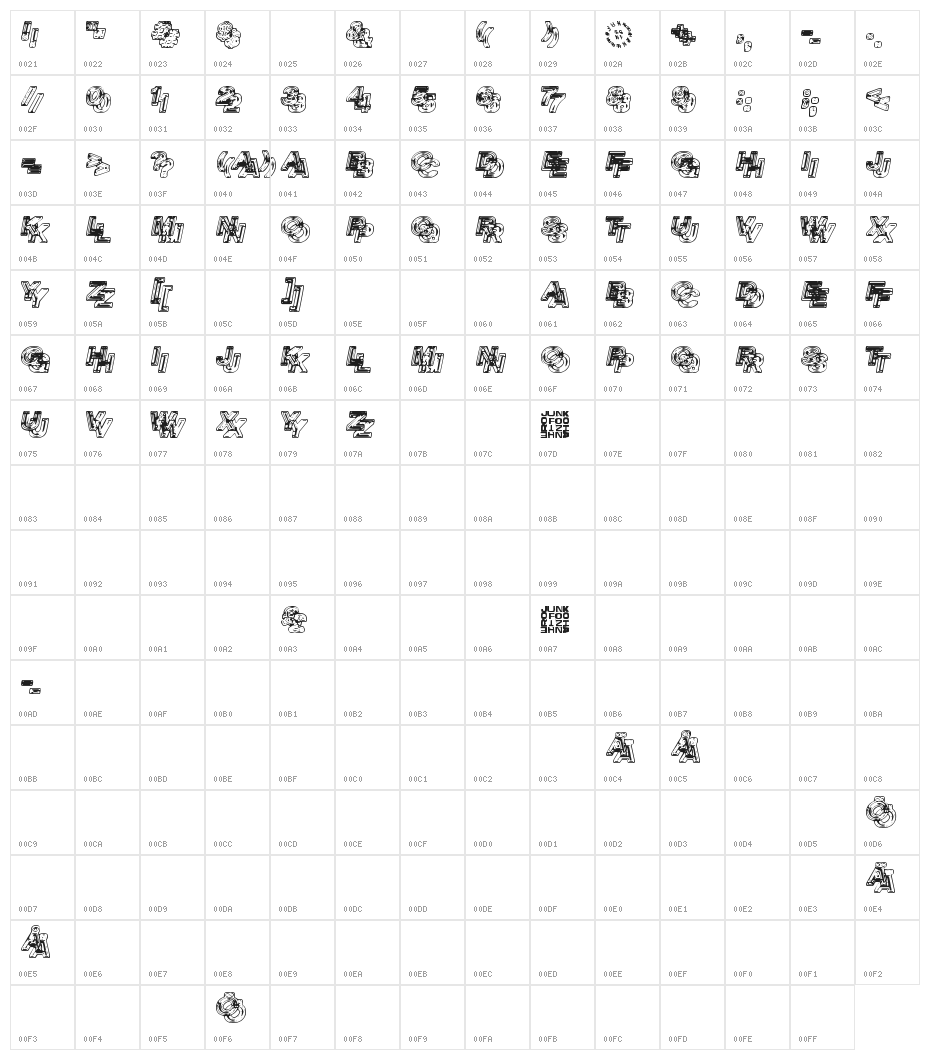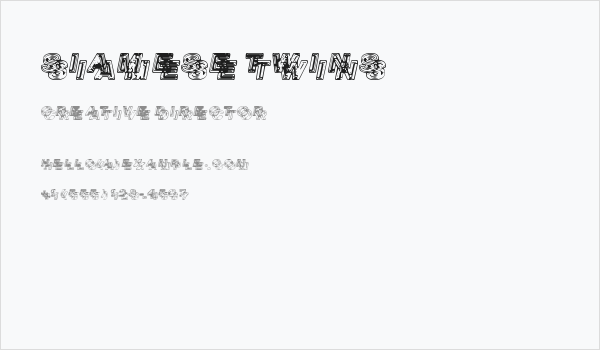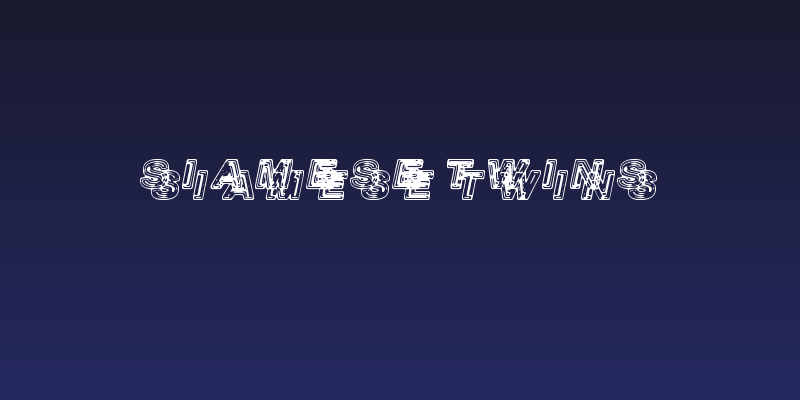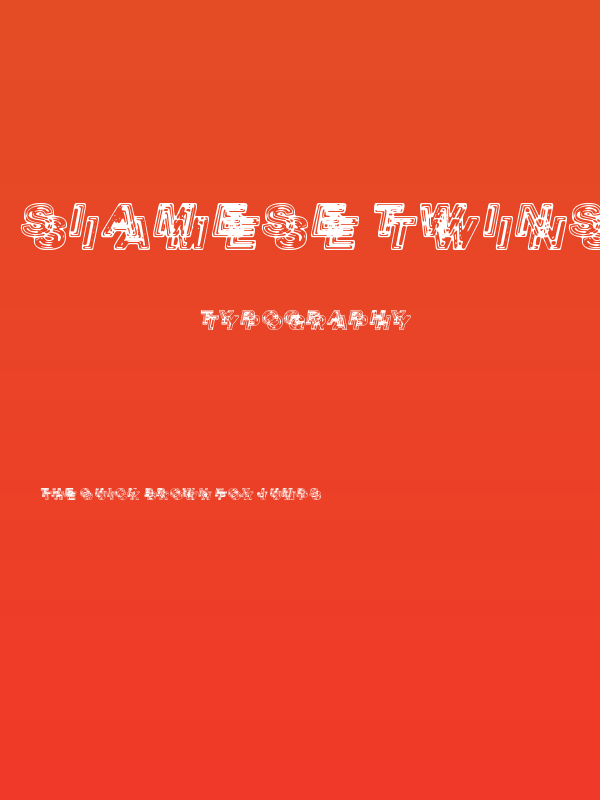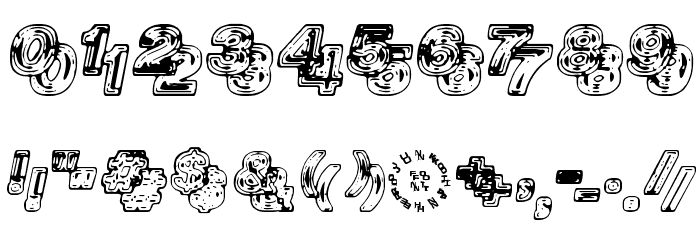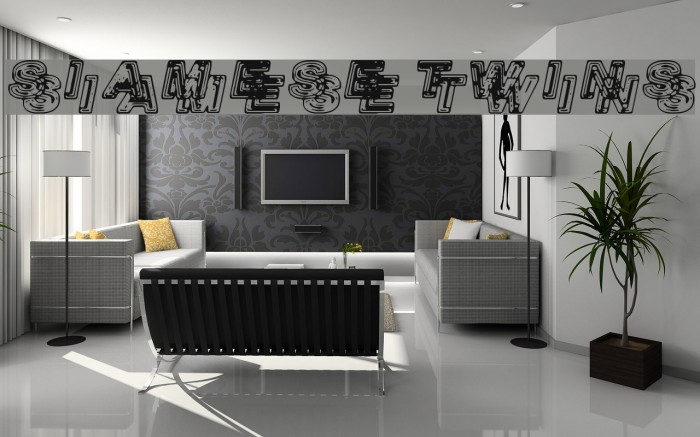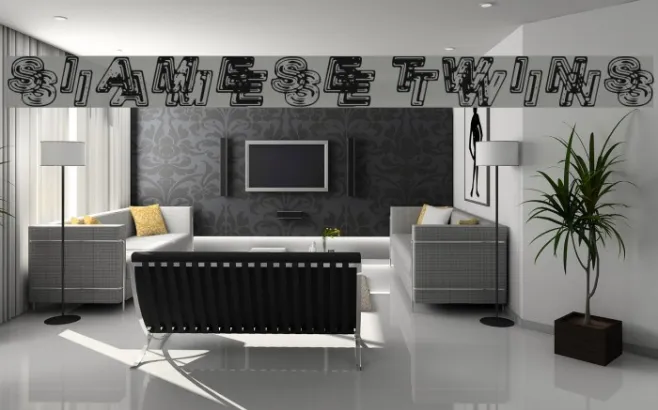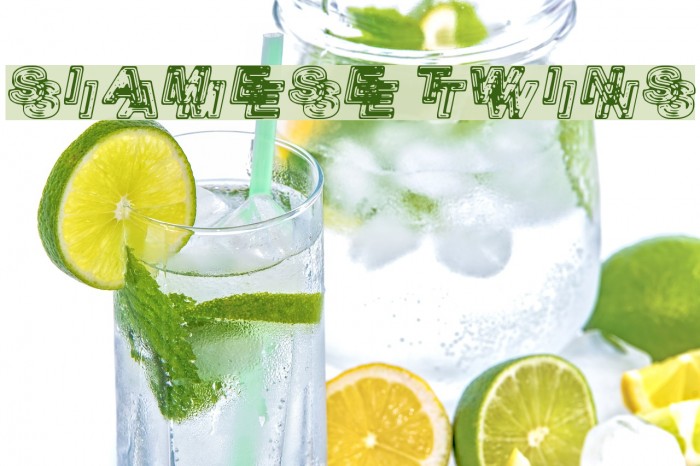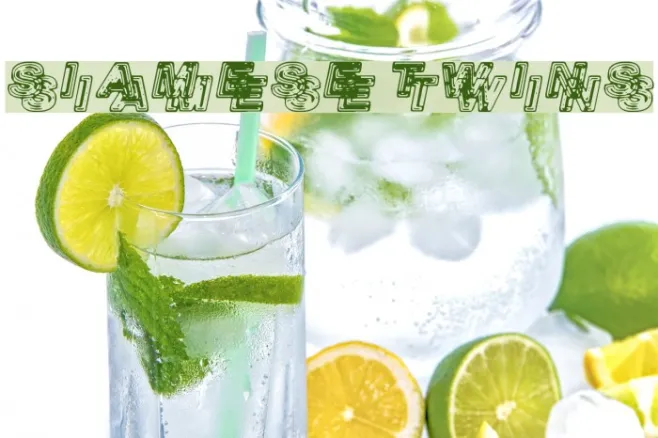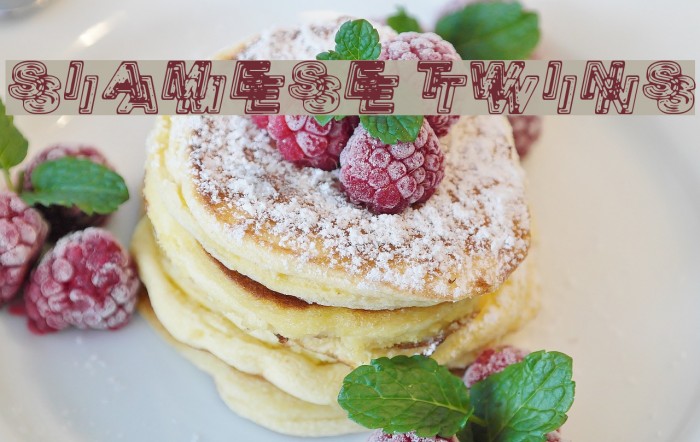
Siamese Twins Font
Siamese Twins Description
This font features a unique and playful design with overlapping and intertwined letterforms that create a dynamic and eye-catching effect. The characters are bold and have a three-dimensional appearance, with multiple layers giving a sense of depth and movement. The font includes both uppercase and lowercase letters, numbers, and a variety of special characters. Its intricate design makes it stand out, perfect for projects that require a bold statement. The style is reminiscent of a modern, artistic approach, blending creativity with readability.
SIAMESE-TWINS UPPERCASE
SIAMESE-TWINS LOWERCASE
SIAMESE-TWINS OTHER CHARS
| Proposed Projects | Ideal for posters, album covers, branding, and any creative project that requires a bold and artistic touch. |